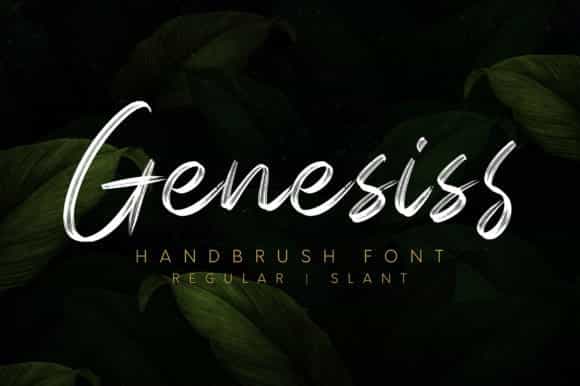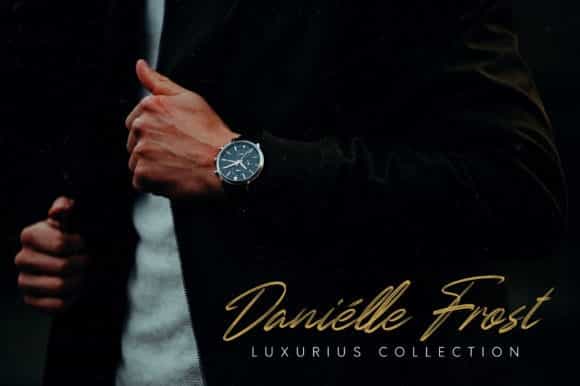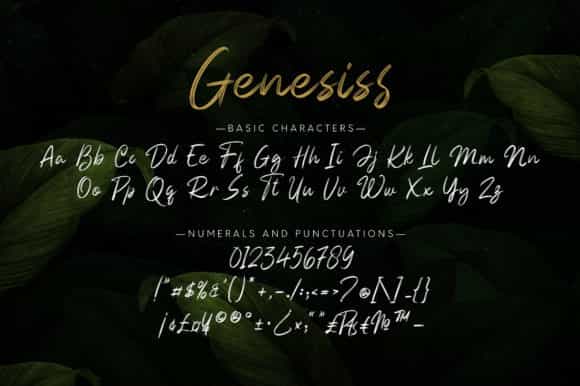
Genesiss is a brush font designed by OMotu. A hand-brushed script font, with 2 styles, regular Ai slant. The Genesiss font is best suited for materials such as in branding and logotype can also be cataloger on clothing (T-shirt, Hoodie) products packaging, quotations, posters letters advertising etc.